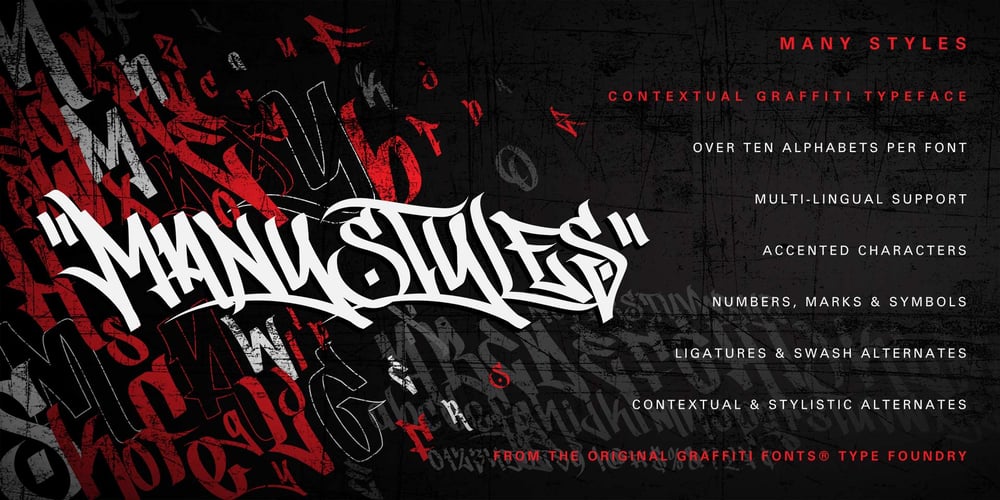
Many Styles Contextual Font Family was designed by Matthew Napolitano and published by Graffiti Fonts. Many Styles Contextual contains 1 styles and family package options. ManyStyles™ is a contextual graffiti handstyle with an extensive character set. This single font includes more than ten complete alphabets, providing initial and terminal alternates, stylistic alternates, swash alternates, accented characters and a full complement of numbers, punctuation & symbols. This legible but still funky style emulates traditional, chisel-tip graffiti handstyles for the modern age.